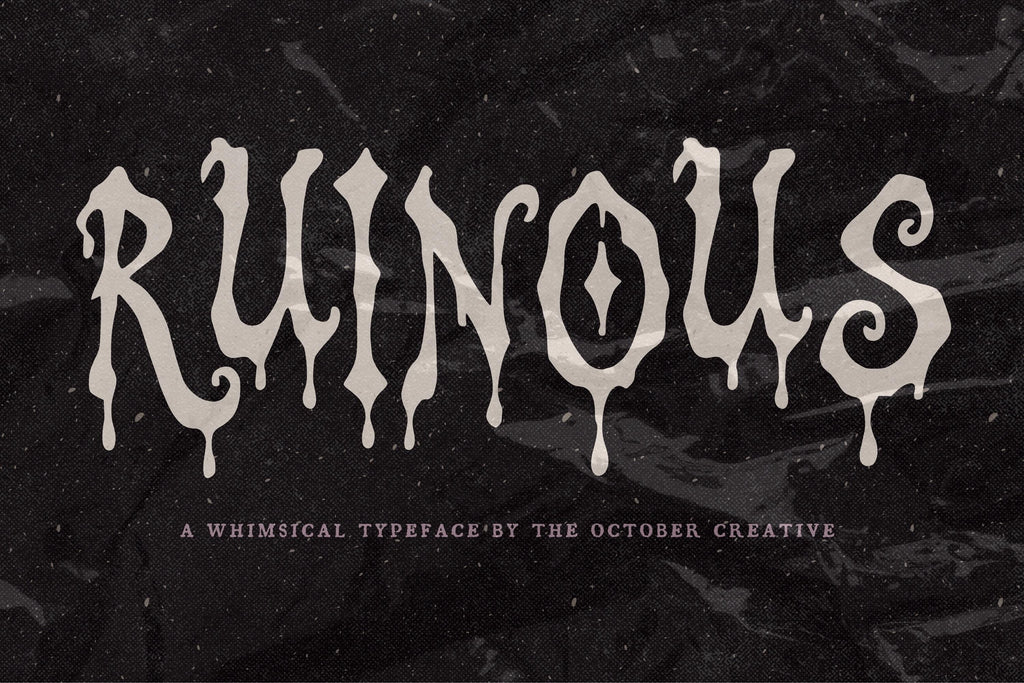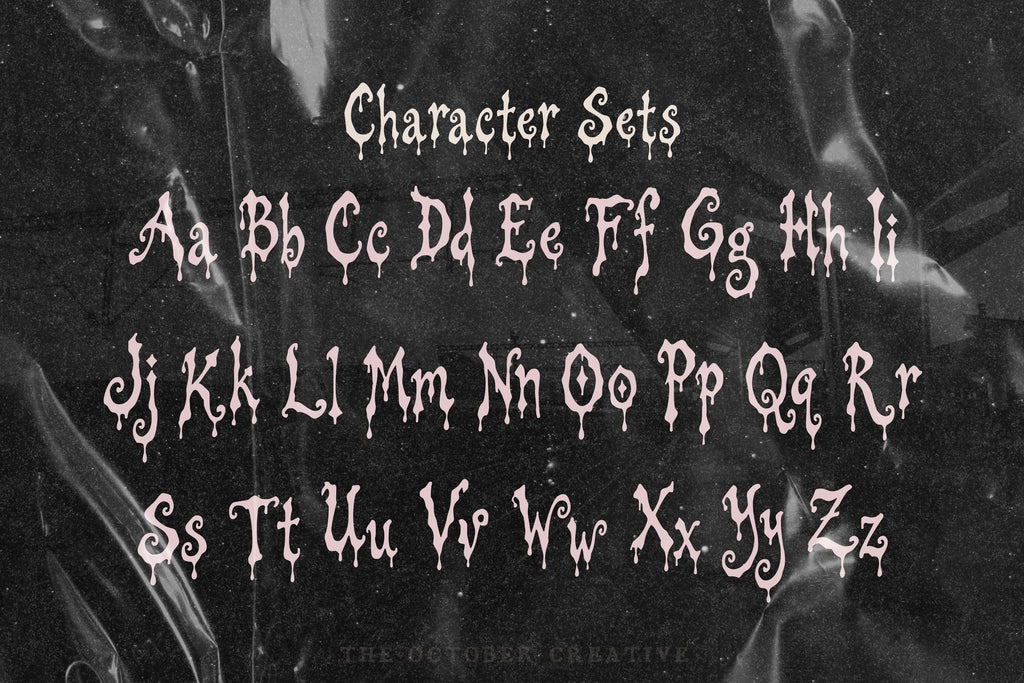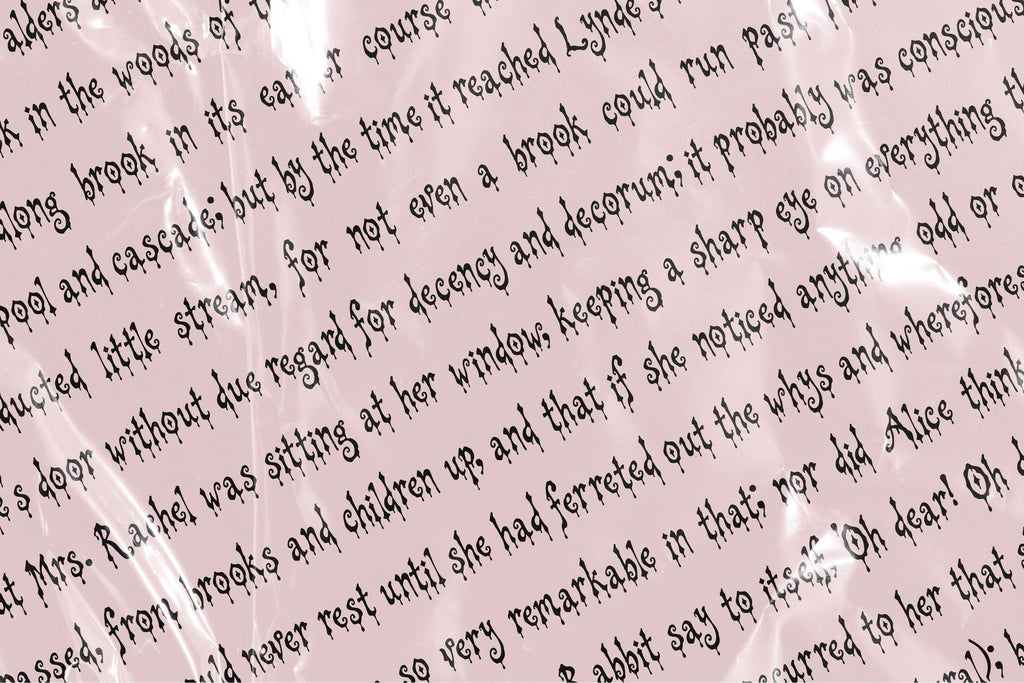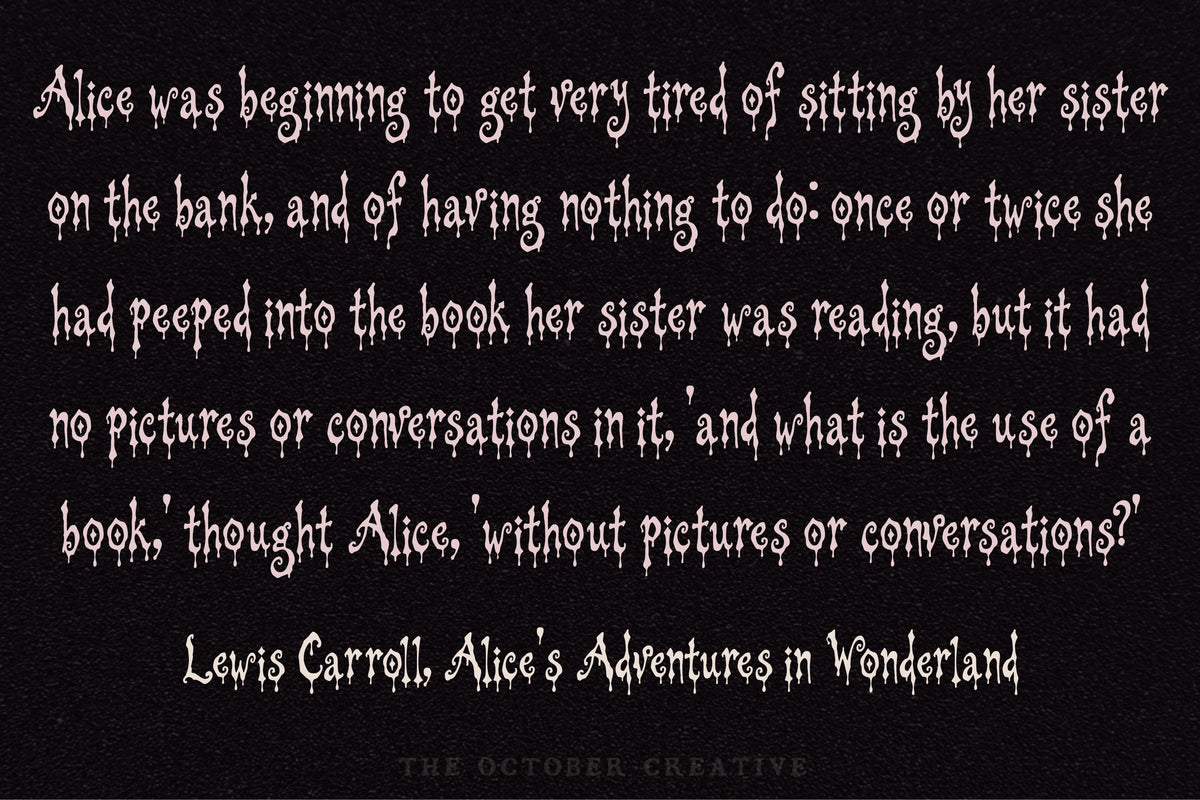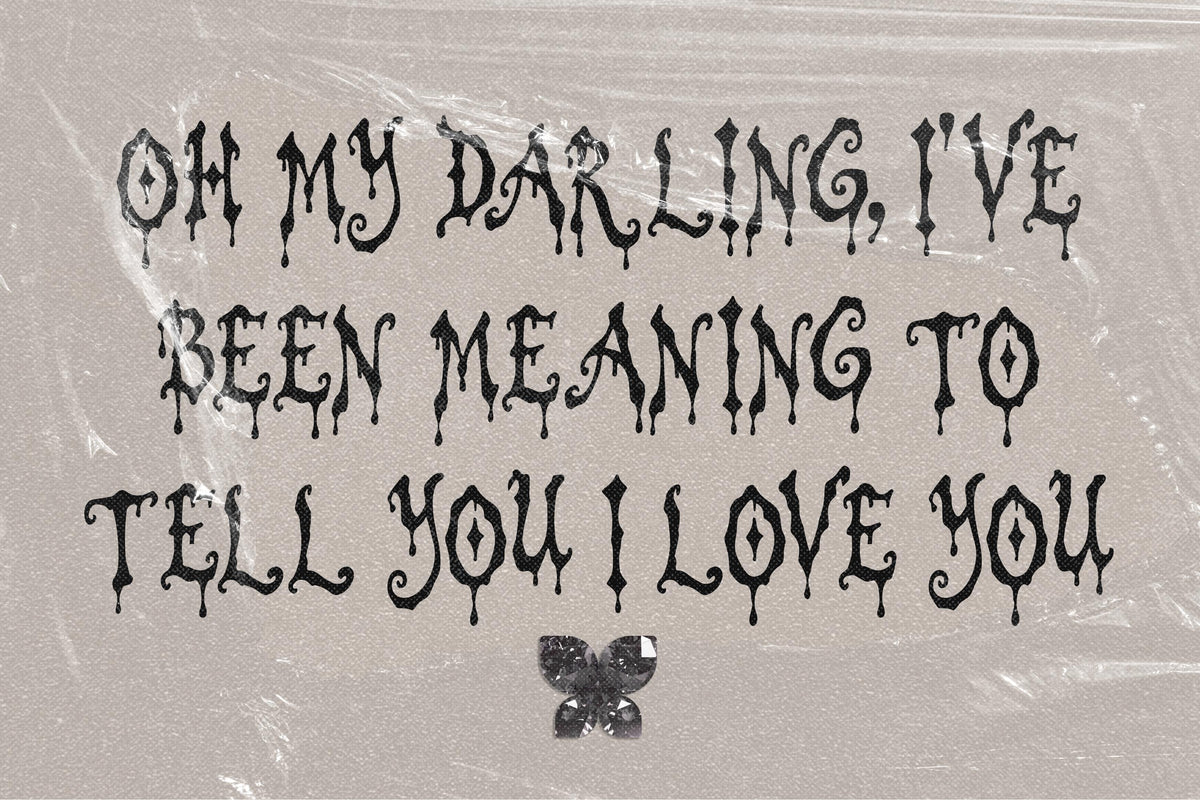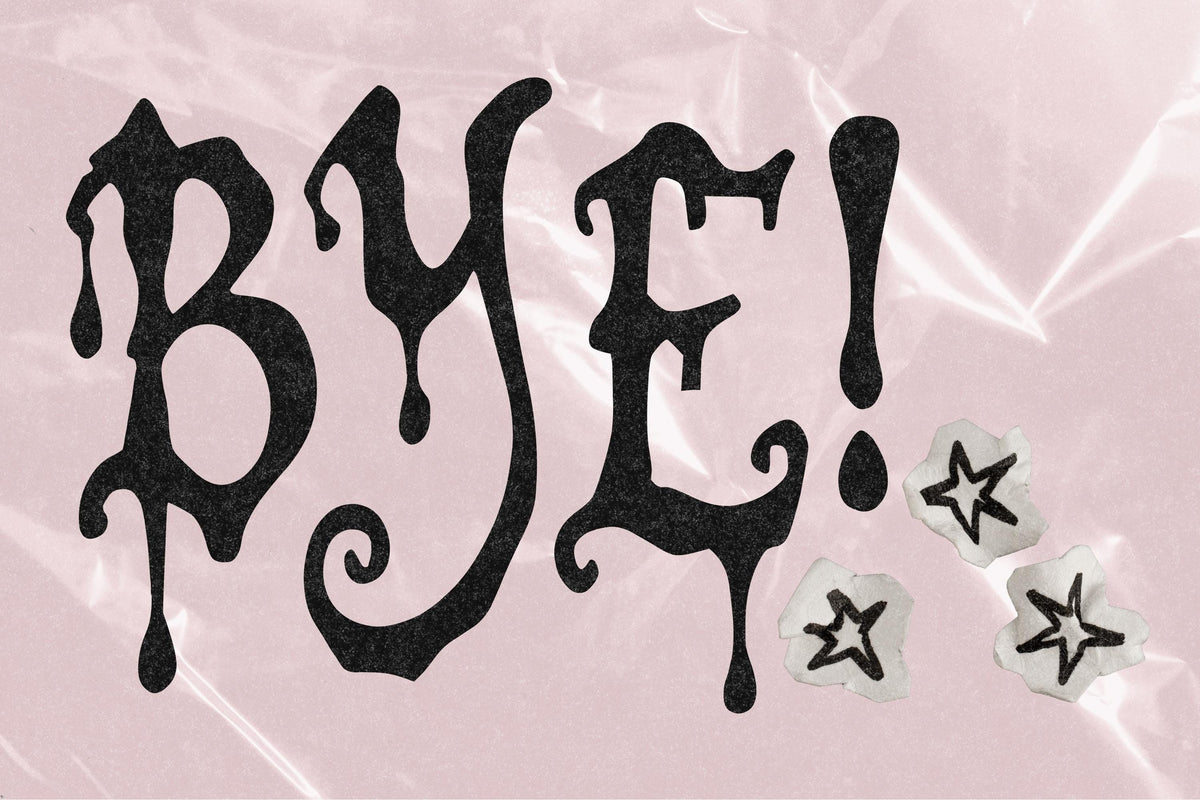
Ruinous Font
Ruinous lets thick drips run down its letters for a wonderfully messy Halloween title. Try it on horror posters, haunted party signs, and labels for whatever questionable concoction you're serving your guests.
• One style: Ruinous Regular
• Uppercase A to Z, lowercase a to z, numbers 0 to 9, and every standard keyboard punctuation mark and symbol
• Curly quotes and apostrophes, dashes, an ellipsis, and a bullet
• Common accented letters for names, like José, Chloé, Zoë, Renée, and Françoise
• One Regular style, with no alternate characters or ligatures.